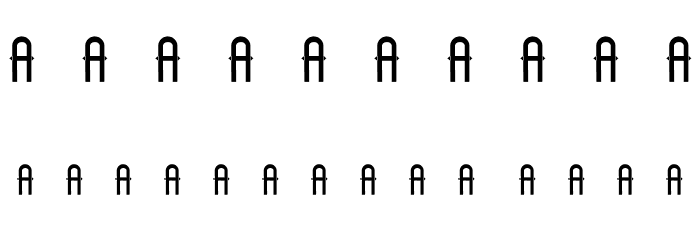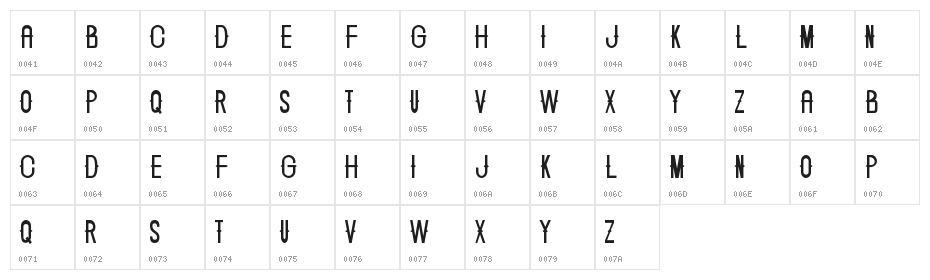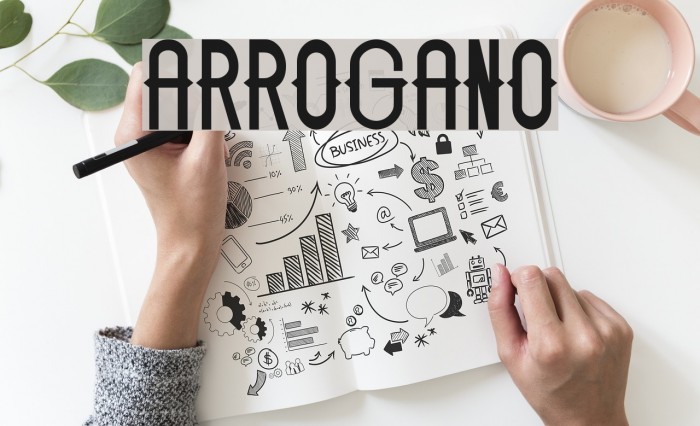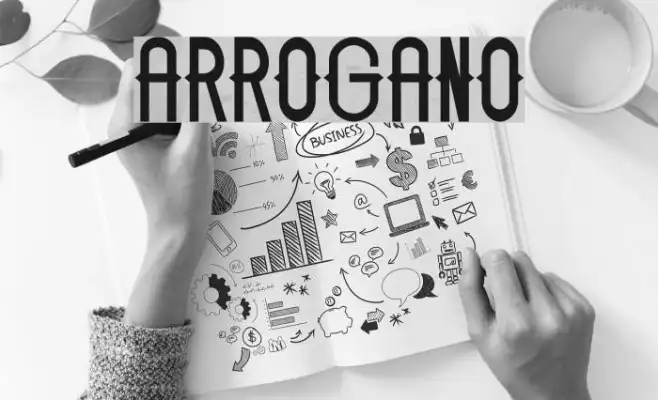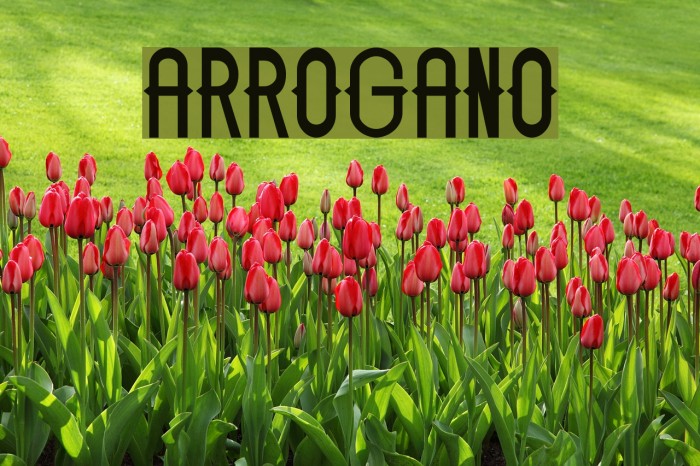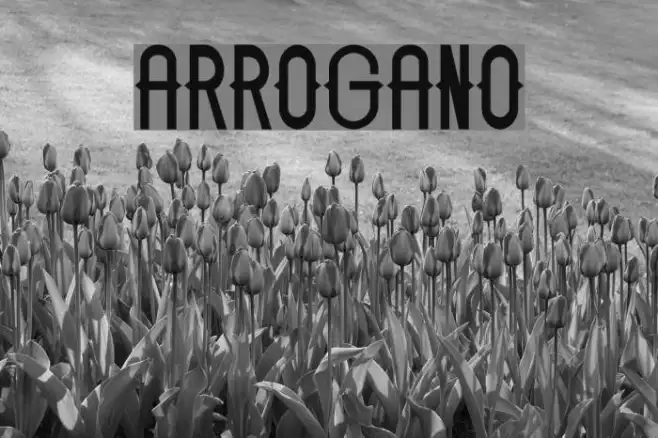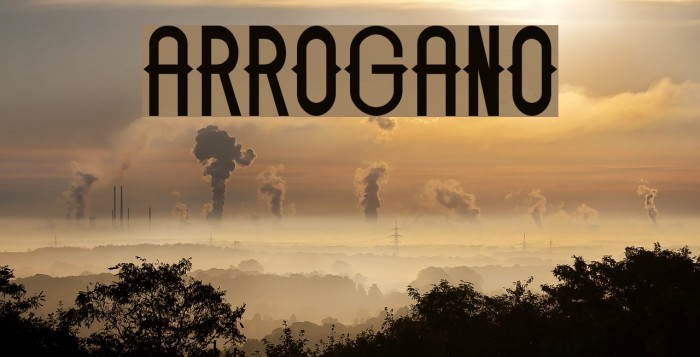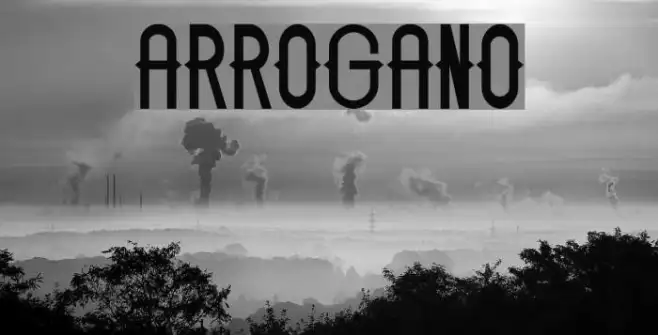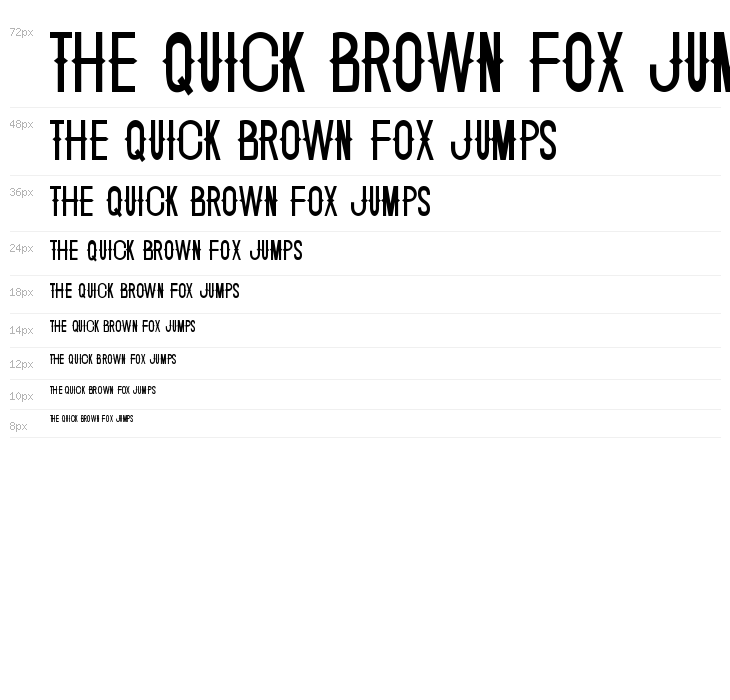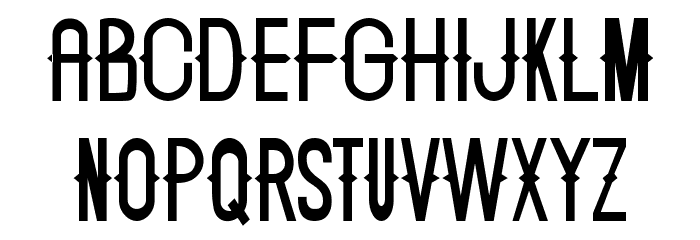
ARROGANO Font
ARROGANO Description
This font features a unique and bold design with a modern twist. The characters are tall and narrow, with distinct vertical strokes that give it a strong presence. The uppercase letters are particularly striking, with a geometric and symmetrical style that adds a sense of balance and stability. The lowercase letters maintain the same aesthetic, ensuring consistency throughout. The numbers and special characters are crafted to match the overall design, making it versatile for various uses. The font's clean lines and sharp edges make it suitable for contemporary projects that require a touch of sophistication and elegance.